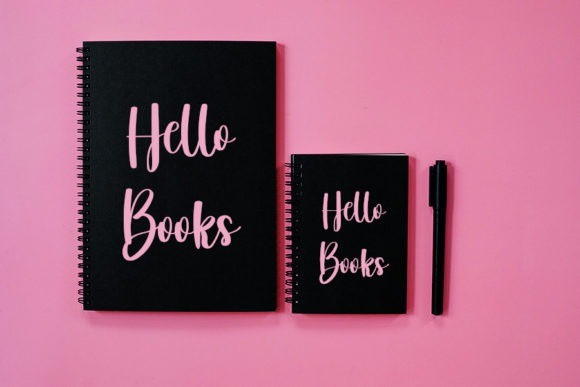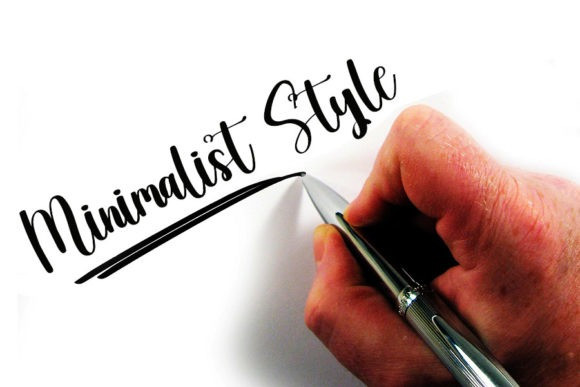
Walkouts Font
Walkouts Font is an enchanting handwritten font. This versatile script font has a wide spectrum of applications ranging from greeting cards to headlines and is guaranteed to add a romantic feel to your next project.